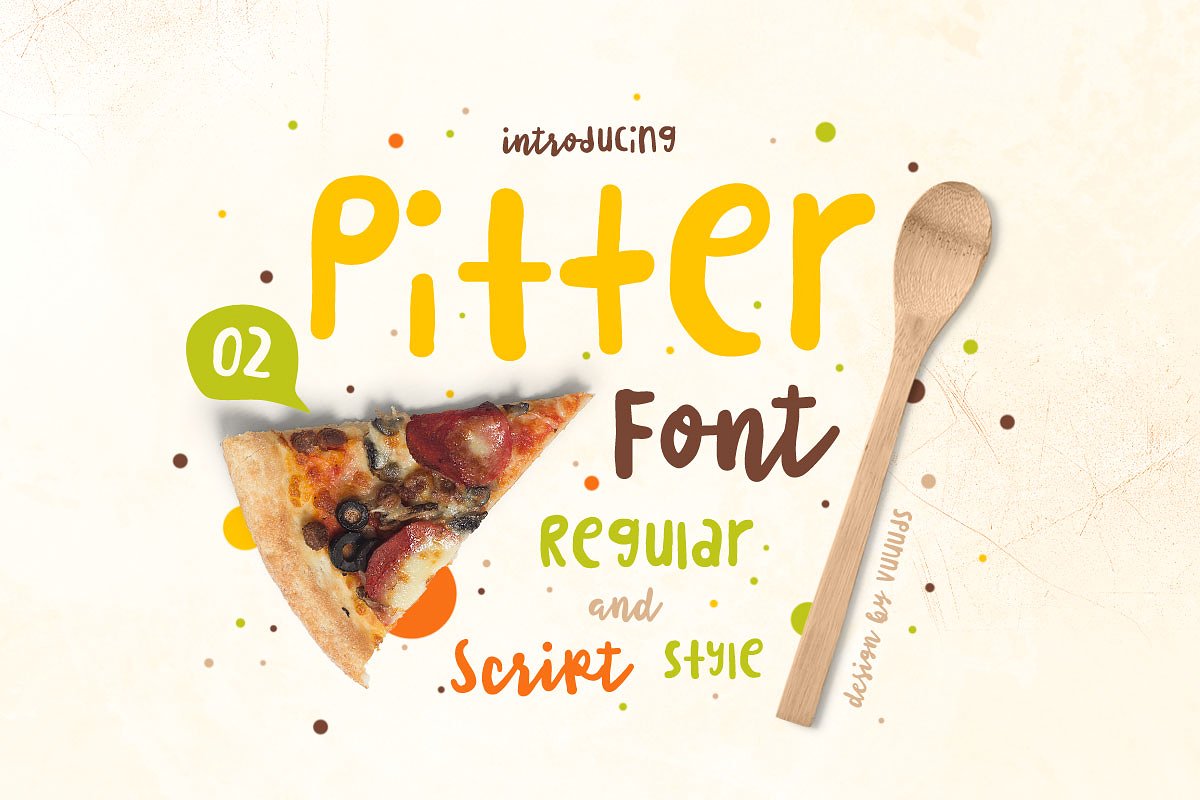
Pitter Script
Pitter Script Font
Pitter is font duo with fun display and script style, every single letters have been carefully crafted to make your text looks beautiful. With modern unique style this font will perfect for many different project ex: quotes, blog header, poster, wedding, branding, logo, fashion, apparel, letter, invitation, stationery, etc.